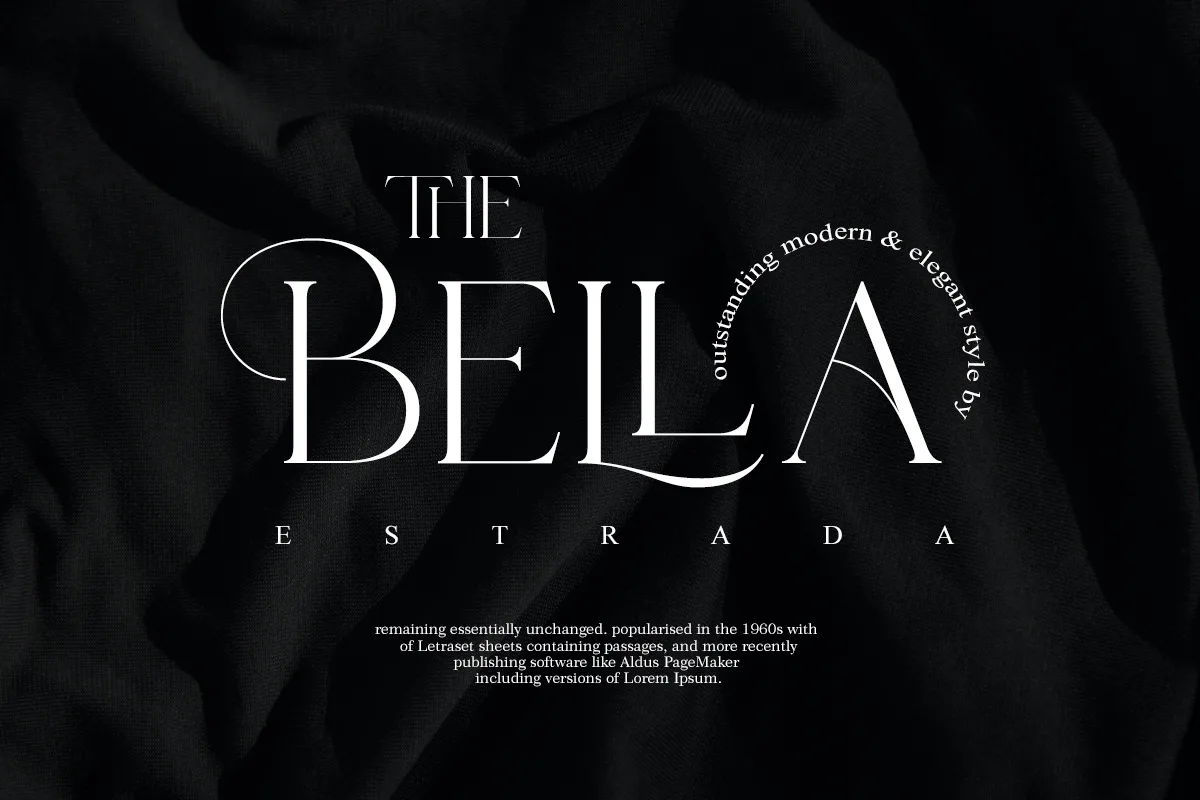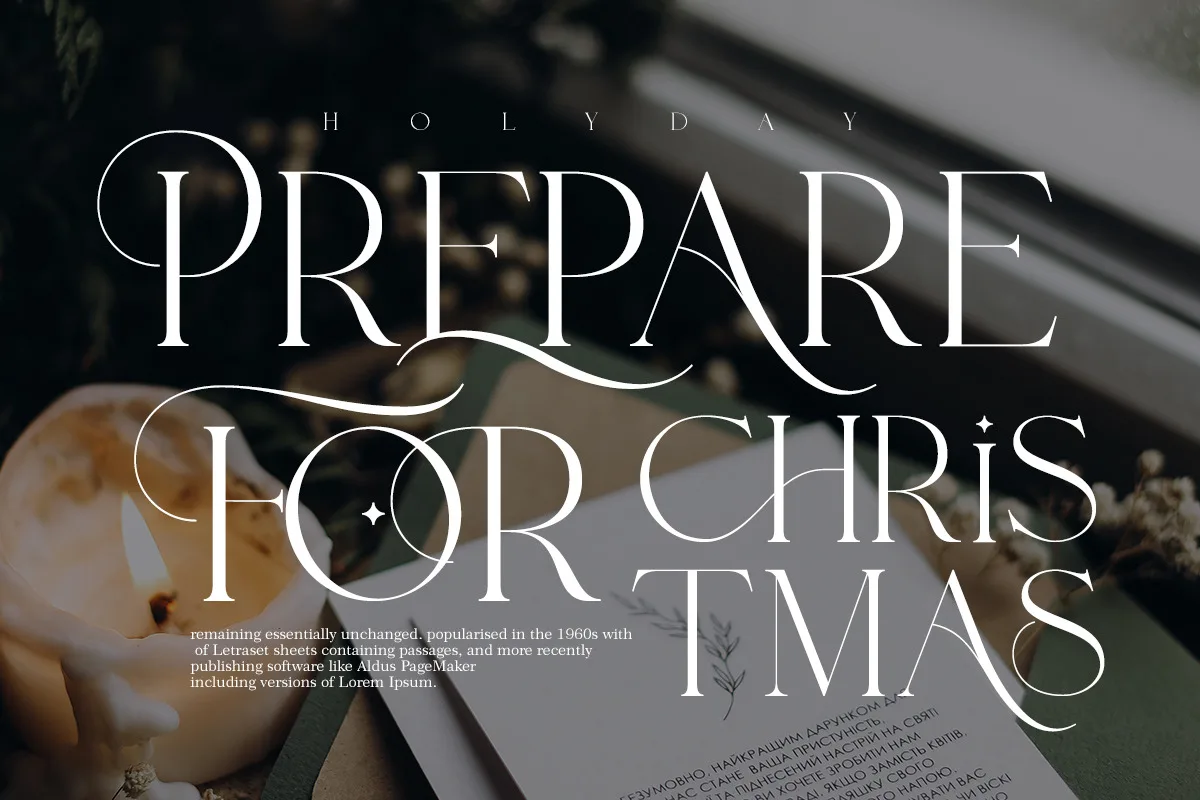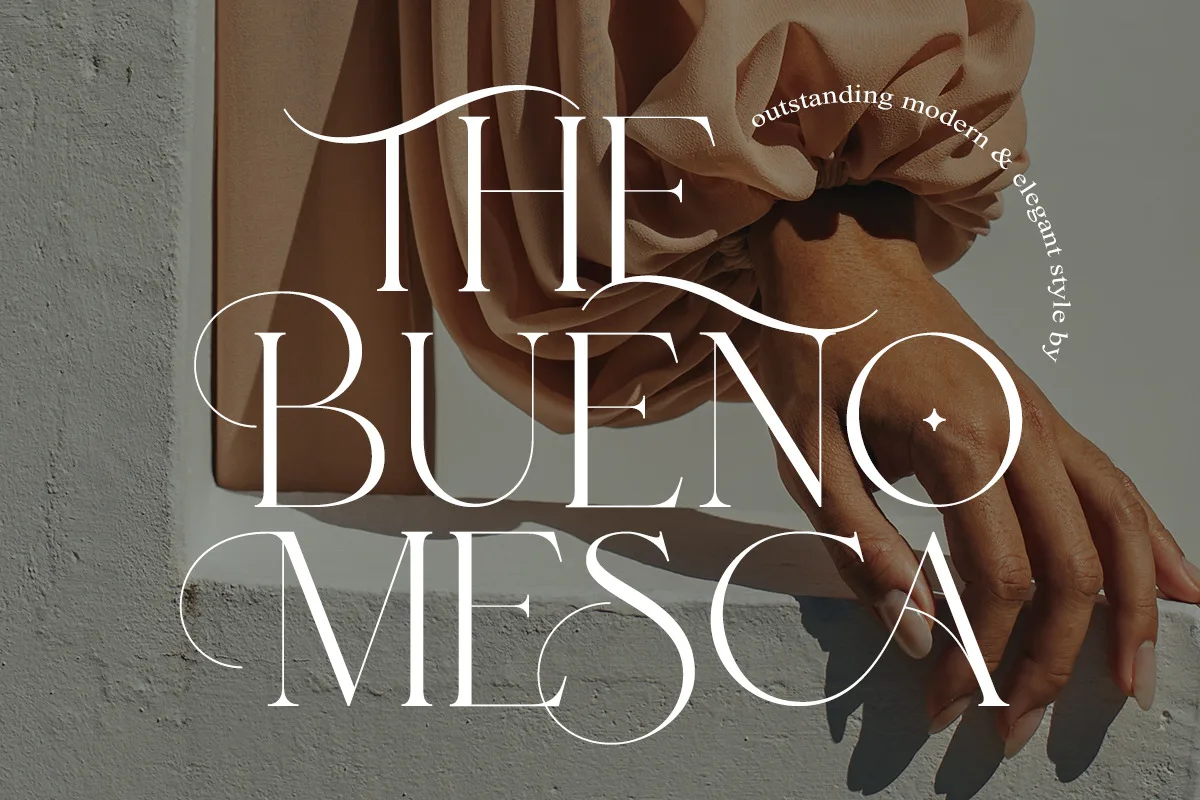
Roylles includes uppercase letters, numerals, a large range of punctuation. Serif font with modern stylish style include ligatures and alternate characters. Created for poster, web design, branding, illustrations, badges and some other works.